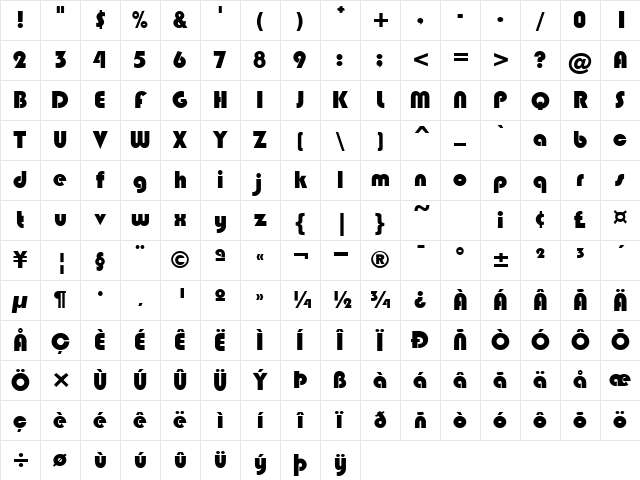
PT Bandstand Normal Free Font
PT Bandstand Normal
Design Context for PT Bandstand
PT Bandstand is a composed and adaptable typeface that performs quietly and consistently across a wide range of design contexts.